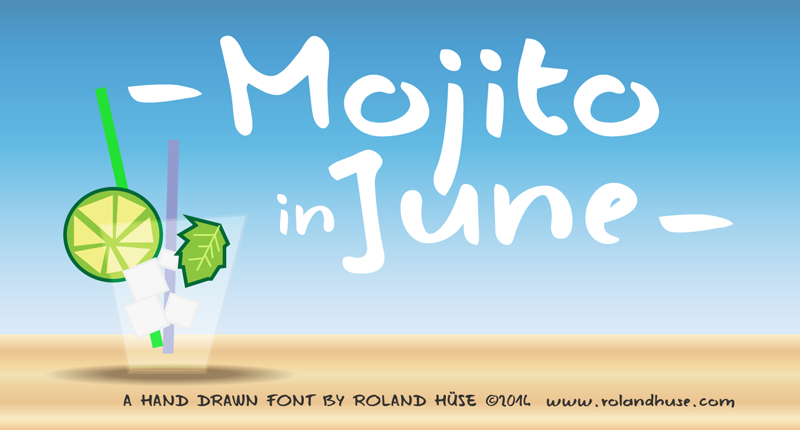
Preview and download Mojito in June Font. Created by Runes & Fonts in Script Handwritten styles with Free for personal use license.
MOJITO IN JUNE is a hand drawn font inspired by summer 2014. This font is free for PERSONAL use only. For any commercial use (anything you make money from), you must send a paypal donation to myhandwritings@gmail.com. You MAY NOT sell my fonts or claim them as your own. You MAY NOT edit or rename my fonts. You MAY redistribute my fonts if: 1. You credit me (Roland Huse). 2. Keep the READ ME file intact within the zip folder. 3. Provide a link back to my website (www.rolandhuse.com). Thank you & I hope you like this font, Roland http://www.rolandhuse.com https://www.facebook.com/pages/Runes-And-Fonts/123221817784772 |